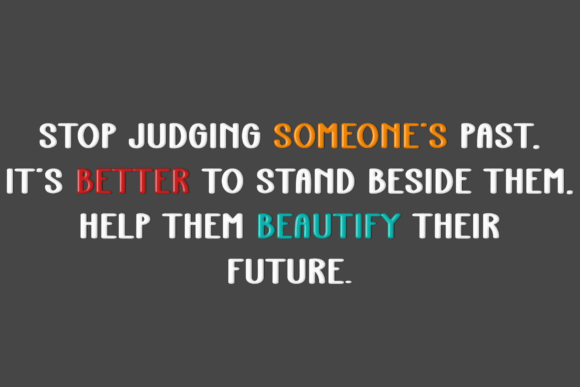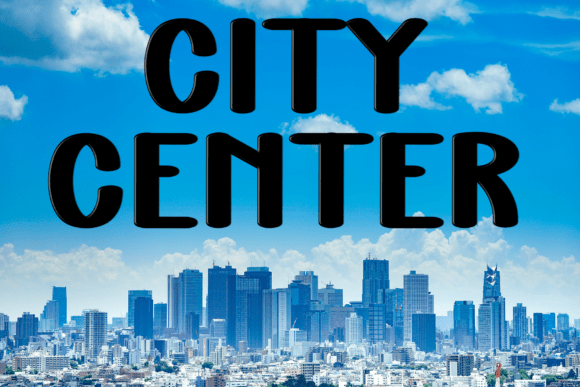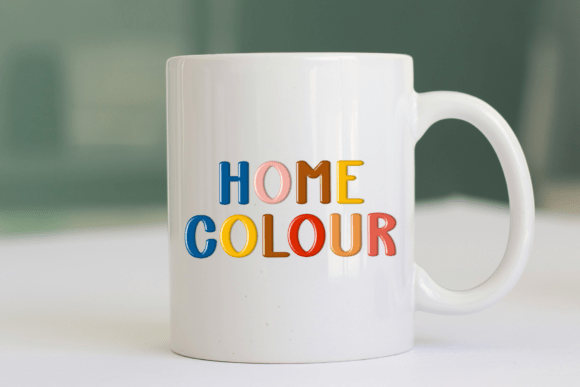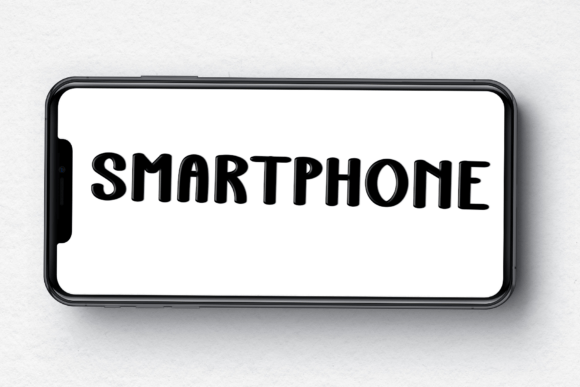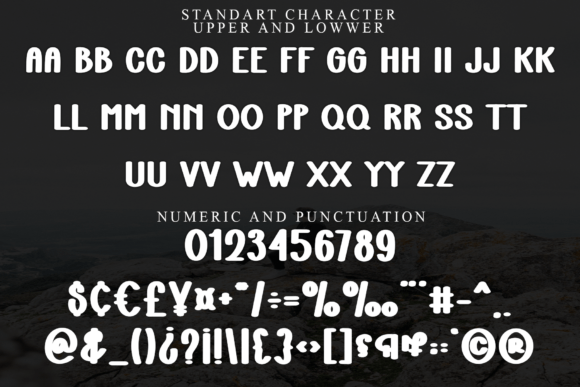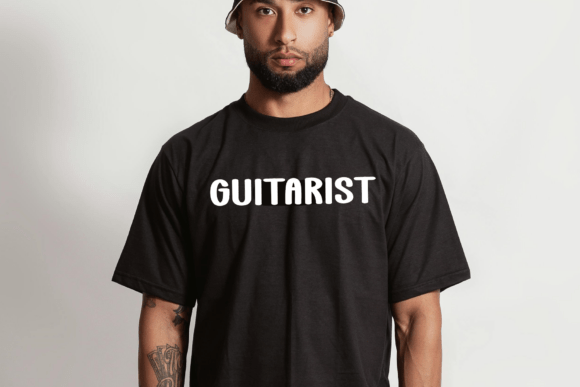
Grape Festival Font: Elevate Your Designs with a Unique and Eye-Catching Style
Are you a designer or crafter looking for a font that can add a touch of elegance and whimsy to your creative projects? Look no further than the Grape Festival Font, a beautiful and versatile typeface that is sure to capture the attention of your audience. In this article, we’ll take a closer look at the features and benefits of this stunning font, and explore how it can be used to enhance your designs and crafts.
A Soft and Unique Touch
The Grape Festival Font is designed with a soft, unique touch that sets it apart from other fonts. Its distinctive strokes give it a special character, making it meaningful and versatile for future use. Whether you’re working on a design project, craft, or other creative work, this font is sure to add a touch of personality and flair. With its natural and effortless style, the Grape Festival Font is perfect for a wide range of applications, from branding and advertising to packaging and editorial design.
Variety of Characters
One of the standout features of the Grape Festival Font is its variety of characters. With a range of letters, numbers, and symbols, this font offers endless possibilities for creative expression. Whether you’re looking to create a bold statement or a subtle design, the Grape Festival Font has everything you need to bring your vision to life. From elegant headings to playful body text, this font is sure to impress.
Ideal for Design Projects and Crafts
The Grape Festival Font is perfect for a wide range of design projects and crafts, including:
- Branding and advertising: Create eye-catching logos, business cards, and brochures that showcase your brand’s personality.
- Packaging design: Add a touch of elegance and sophistication to your product packaging with this beautiful font.
- Editorial design: Use the Grape Festival Font to create stunning editorial designs, from magazine covers to article headings.
- Crafts: Add a personal touch to your handmade crafts, from cards and invitations to scrapbooking and journaling.
Why Choose the Grape Festival Font?
So why choose the Grape Festival Font for your design projects and crafts? Here are just a few reasons:
- Unique and eye-catching style: The Grape Festival Font is a one-of-a-kind typeface that is sure to capture the attention of your audience.
- Versatile and compatible: This font is compatible with a wide range of applications and can be used in a variety of design projects and crafts.
- Elegant and whimsical: The Grape Festival Font has a soft, unique touch that adds a touch of elegance and whimsy to any design.
In conclusion, the Grape Festival Font is a beautiful and versatile typeface that is perfect for designers and crafters looking to add a touch of elegance and whimsy to their creative projects. With its unique and eye-catching style, variety of characters, and compatibility with a wide range of applications, this font is sure to enhance your designs and crafts. Whether you’re working on a professional project or a personal craft, the Grape Festival Font is a great choice for anyone looking to elevate their designs and take their creativity to the next level.